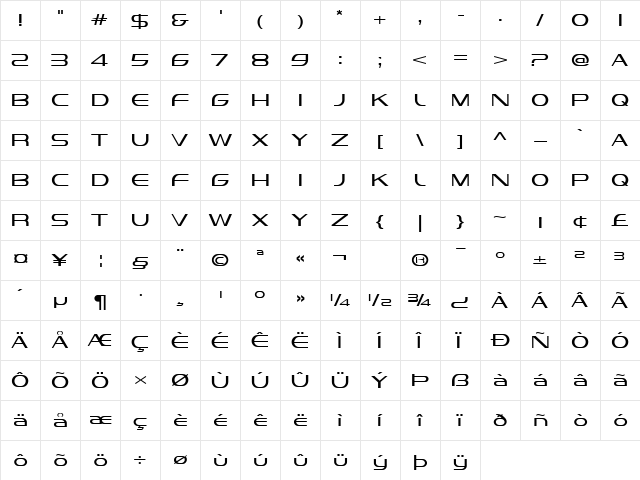
Vandiana Platin Lite Regular
| Designer | Ersen Akkaya |
Design Context for Vandiana Platin Lite Typeface
Vandiana Platin Lite offers clean, dependable letterforms without strong stylistic allegiance, making it a practical choice for designers who need flexibility.